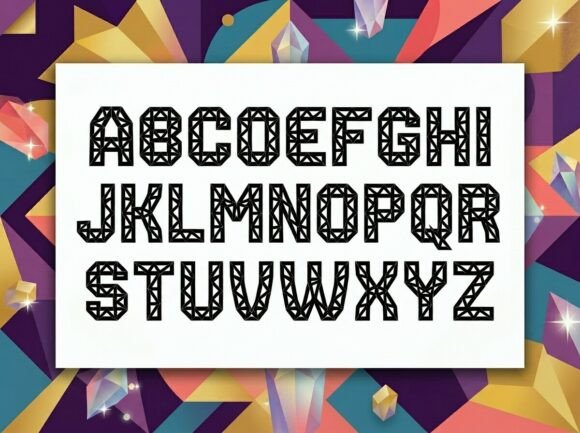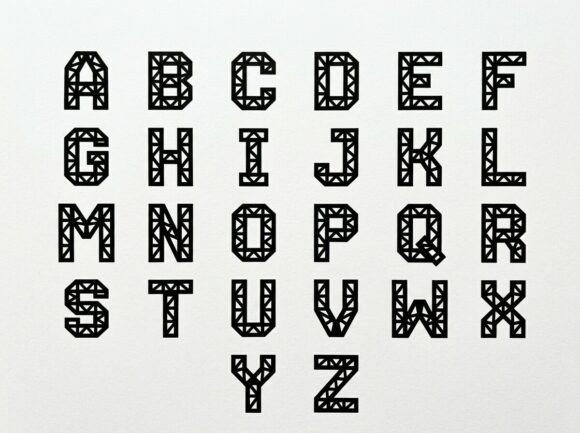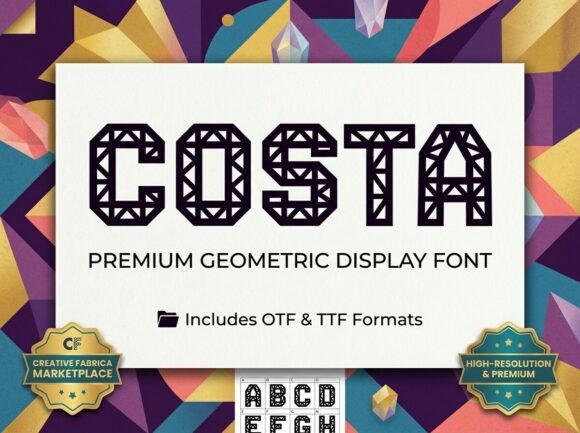
Unleash the Brilliance of Costa Font: Elevate Your Visual Identity
In the realm of typography, a font can make or break the visual identity of a brand. For designers and crafters seeking to create a lasting impression, Costa Font emerges as a game-changer. Inspired by the intricate facets of precious gemstones, Costa is a premium geometric display font that redefines the boundaries of visual storytelling.
The Genesis of Costa Font
Costa Font is the brainchild of a meticulous design process that aimed to capture the essence of gemstones. Every character in this high-resolution typeface is constructed from an intricate web of interlocking triangles and polygons, creating a mesmerizing crystalline texture. This unique design approach lends Costa an unparalleled level of sophistication, making it an extraordinary choice for brands that aspire to shine bright.
Design Characteristics of Costa Font
Costa Font boasts bold structural outlines that maintain excellent legibility, even at smaller sizes. This high-tech aesthetic is perfectly suited for brands that operate at the forefront of innovation. The geometric design of Costa ensures that every character is not only visually striking but also highly legible, making it an ideal choice for a wide range of applications.
Applications of Costa Font
The versatility of Costa Font makes it a valuable asset for various design projects. Some of the ideal applications of Costa include:
- Jewelry Branding: The gemstone inspiration behind Costa makes it a natural fit for jewelry brands looking to convey luxury and sophistication.
- Innovative Tech Logos: The high-tech aesthetic of Costa ensures that tech brands can leverage this font to communicate innovation and forward-thinking.
- Luxury Product Packaging: For brands that offer high-end products, Costa provides a typographic solution that exudes elegance and refinement.
- High-Concept Event Headers: Event organizers can use Costa to create compelling and memorable headers that set the tone for an extraordinary experience.
The Benefits of Using Costa Font
By integrating Costa Font into your design projects, you can:
- Enhance Visual Identity: Costa helps brands establish a strong and distinctive visual identity that sets them apart from competitors.
- Convey Innovation: The geometric and high-tech design of Costa communicates a sense of innovation and forward-thinking.
- Add Sophistication: With its intricate design and luxurious feel, Costa adds a touch of sophistication to any design project.
Tips for Using Costa Font Effectively
To maximize the impact of Costa Font, consider the following tips:
- Pair with Simple Backgrounds: Allow Costa to take center stage by pairing it with simple, non-distracting backgrounds.
- Experiment with Colors: Take advantage of Costa’s versatility by experimenting with different colors that align with your brand’s palette.
- Consider Font Size: Ensure that the font size is optimized for readability, especially when using Costa for body text or smaller applications.
Costa Font is more than just a typeface; it’s a design statement that can elevate your brand’s visual identity to new heights. With its unique gemstone-inspired design, high-tech aesthetic, and versatility, Costa is poised to become a favorite among designers and crafters. Whether you’re working on a jewelry branding project, an innovative tech logo, or luxury product packaging, Costa Font is the perfect choice for those who wish to ignite their visual identity and create a lasting impression.